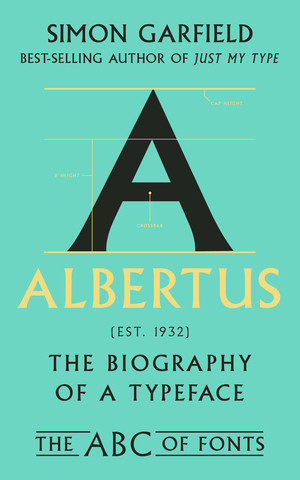
Albertus (The Biography of a Typeface)
Albertus, first carved on a bronze tablet in the 1930s by German Jewish refugee Berthold Wolpe, has proved to be one of the most enduring handcrafted typefaces in the world. It is at once modern and timeless, authoritative and whimsical—renowned as the typeface of London Street signs, David Bowie albums, and Star Wars movie posters. In this unique celebration, best-selling author Simon Garfield charts the story of the creation of Albertus, its innumerable and vibrant uses, and the erratic brilliance of its designer, as recounted by Wolpe’s children. Through his exploration of this singular font, Garfield grapples with one of the most fundamental artistic questions: what makes great art not only survive but flourish in each new age and medium?